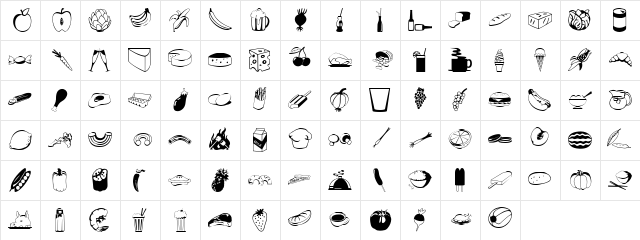
87 Regular Font Preview
87 Regular
87 Regular Font Details
Design Context for 87 Typeface
87 is a composed and adaptable typeface that performs quietly and consistently across a wide range of design contexts.